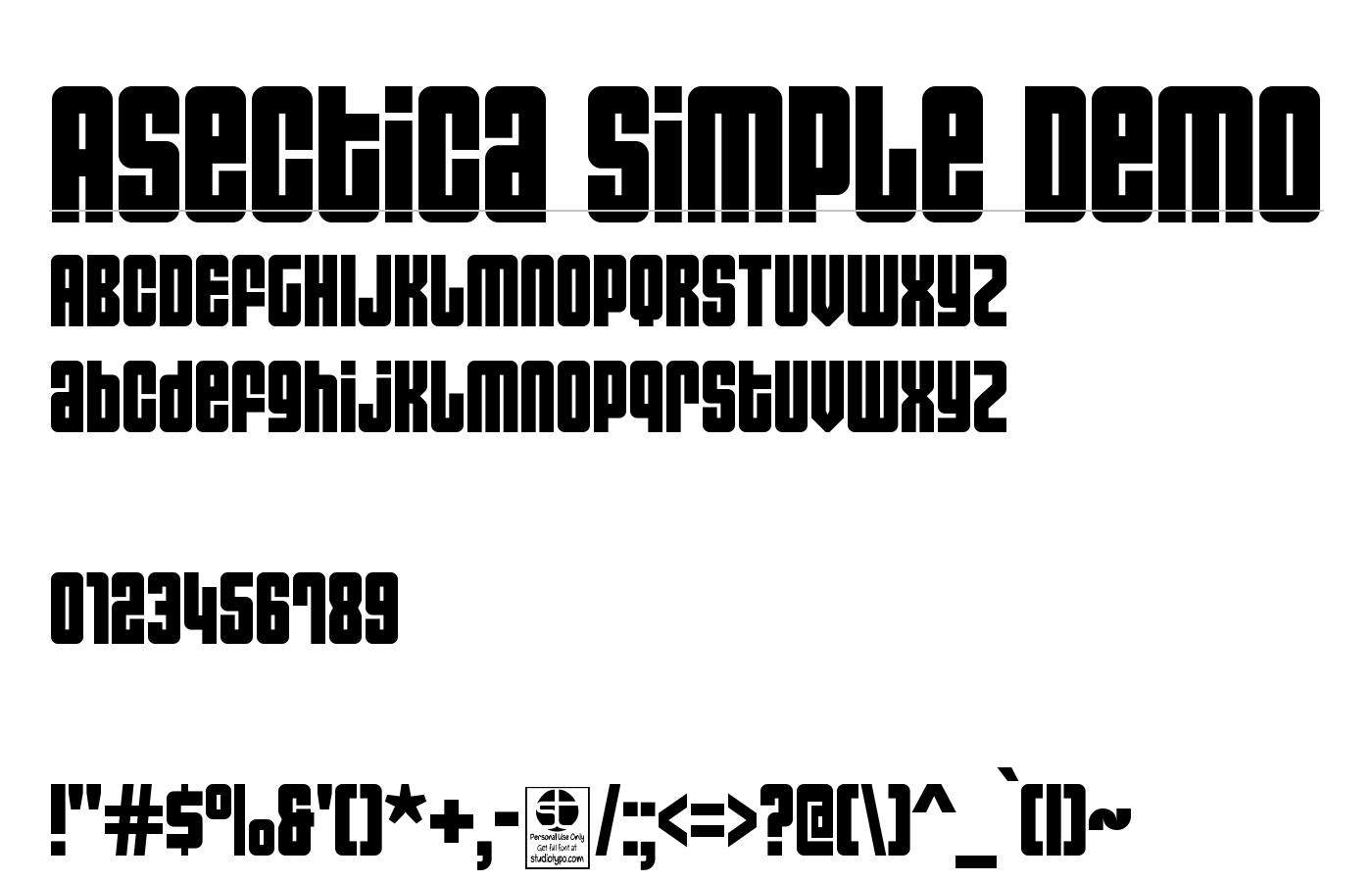
Asectica Simple Demo is a bold, condensed sans serif font with a modern, geometric style and high stroke contrast. Its compact letterforms and strong presence make it ideal for impactful headlines, logos, and branding that require a confident, urban vibe. This font stands out in designs needing a striking and contemporary look while maintaining clear legibility.
Asectica Simple Demo Font
About Asectica Simple Demo Font
| Font family | Asectica Simple Demo Font |
| Designer | Mehmet Abacı |